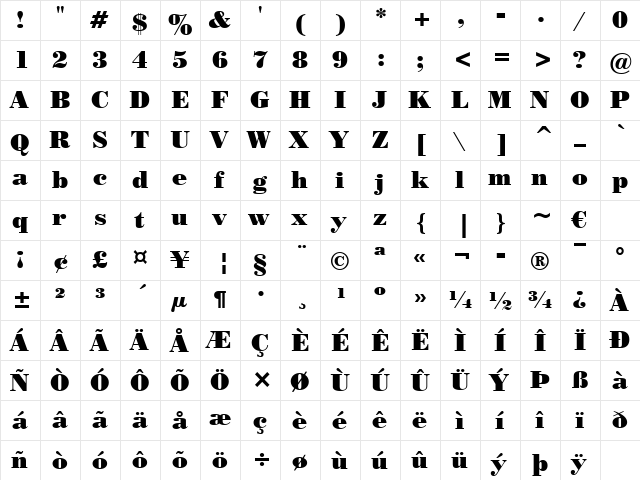
PosterBodoni WGL4 BT Roman
Design Context for PosterBodoni WGL4 BT Typeface
PosterBodoni WGL4 BT offers clean, dependable letterforms without strong stylistic allegiance, making it a practical choice for designers who need flexibility.